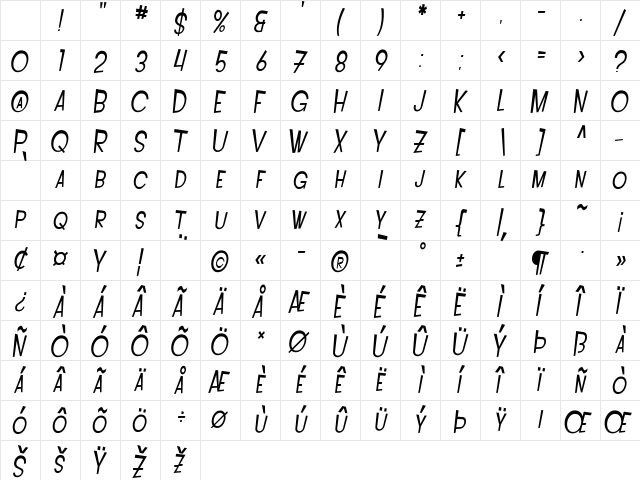
SF Intoxicated Blues Extended Oblique Free Font
SF Intoxicated Blues Extended Oblique
Designer: ShyFonts Type Foundry
Design Context for SF Intoxicated Blues Extended
SF Intoxicated Blues Extended is a composed and adaptable typeface that performs quietly and consistently across a wide range of design contexts. The slanted form adds forward momentum and visual energy.
Pro Tip: Use SF Intoxicated Blues Extended for emphasis, pull quotes, and subheadings where its slanted energy can add rhythm to the layout.